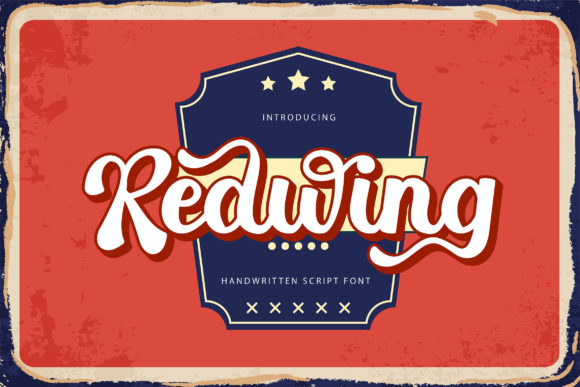
Dive into the alluring world of Redwing, a captivating script font family that exudes retro charm and chic elegance. Brilliantly crafted by the talented Vunira, Redwing promises to elevate your designs with its timeless appeal and artistic flair. Immerse yourself in the boundless creativity that awaits you with Redwing, the perfect font for unleashing your inner artist.
With its meticulously crafted glyphs and effortlessly accessible swashes, Redwing empowers you to effortlessly bring your design visions to life. Its PUA encoding ensures seamless access to a treasure trove of typographic elements, granting you the freedom to explore the limitless possibilities that lie within. Unleash your creativity and let Redwing guide you towards design masterpieces that captivate and inspire.
Envision the stunning wall art you can create with Redwing, its graceful curves and elegant lines adding a touch of sophistication to your living space. Its timeless style effortlessly complements any décor, transforming your walls into captivating galleries that reflect your unique personality and artistic flair. Allow Redwing to transport you to a bygone era, where romance and nostalgia intertwine, creating a visual symphony that speaks volumes.
Redwing's versatility extends beyond wall art, seamlessly adapting to a myriad of design projects. Its enchanting presence graces logos, branding, invitations, and social media posts, effortlessly elevating them with its timeless charm. Let Redwing be your creative companion, guiding you towards designs that leave a lasting impression and captivate your audience.
Embrace the allure of Redwing, a font family that embodies creativity, elegance, and endless possibilities. Dive into a world where retro charm meets modern artistry, and let Redwing ignite your imagination, transforming your design dreams into tangible realities.